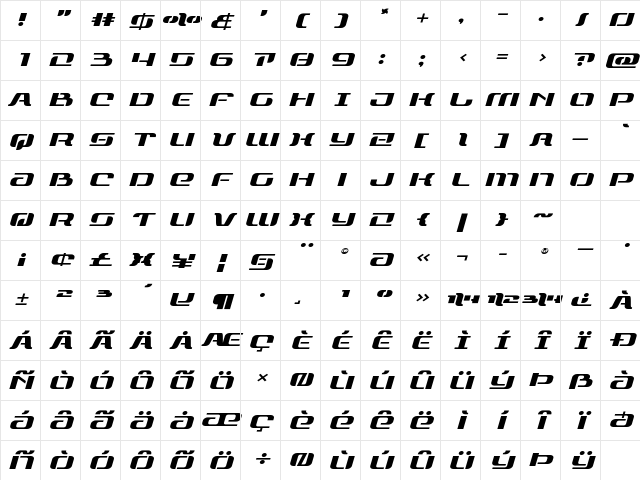
Range Paladin Expanded Italic is a composed and adaptable typeface that performs quietly and consistently across a wide range of design contexts. The slanted form adds forward momentum and visual energy.
Pro Tip: Use Range Paladin Expanded Italic for emphasis, pull quotes, and subheadings where its slanted energy can add rhythm to the layout.